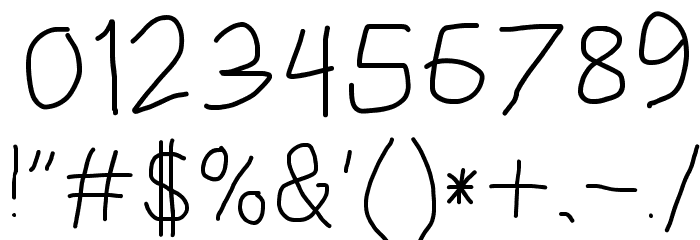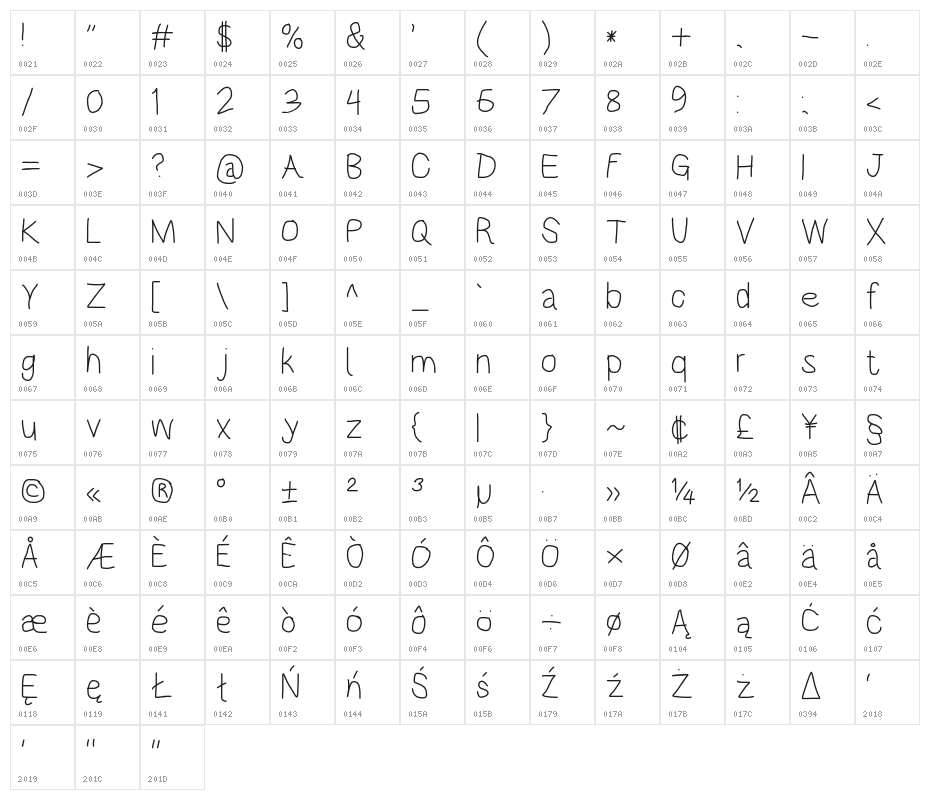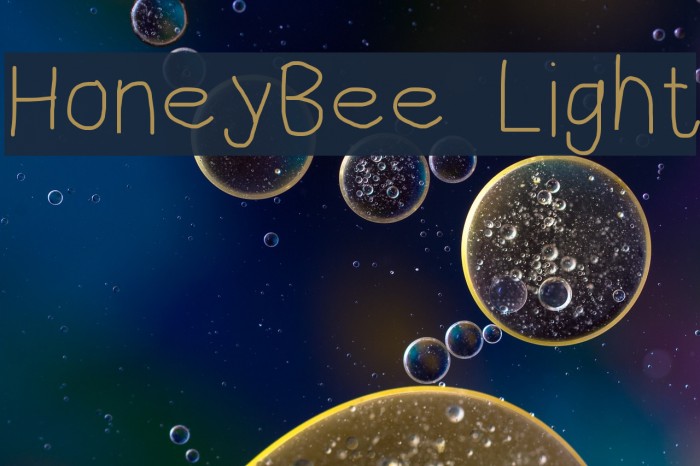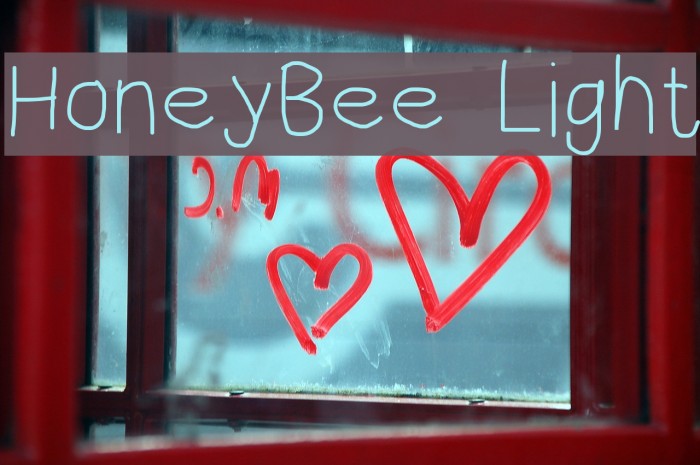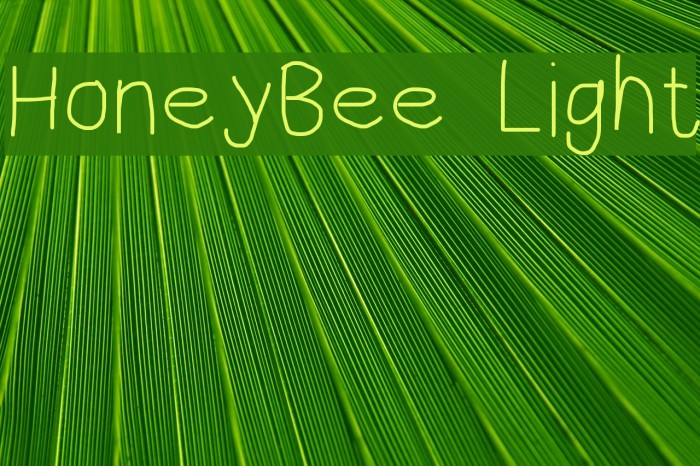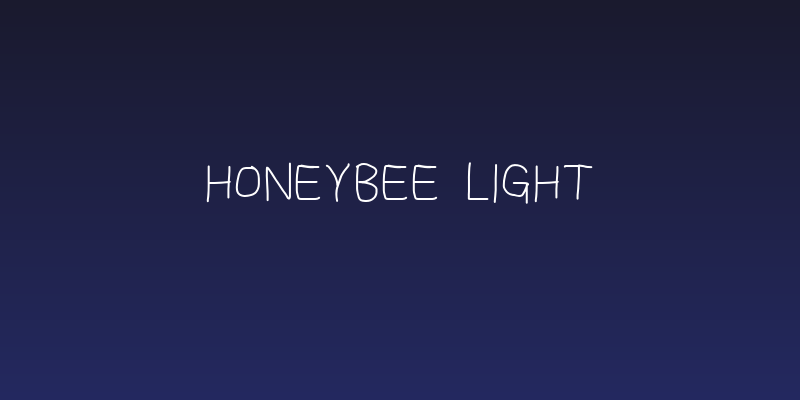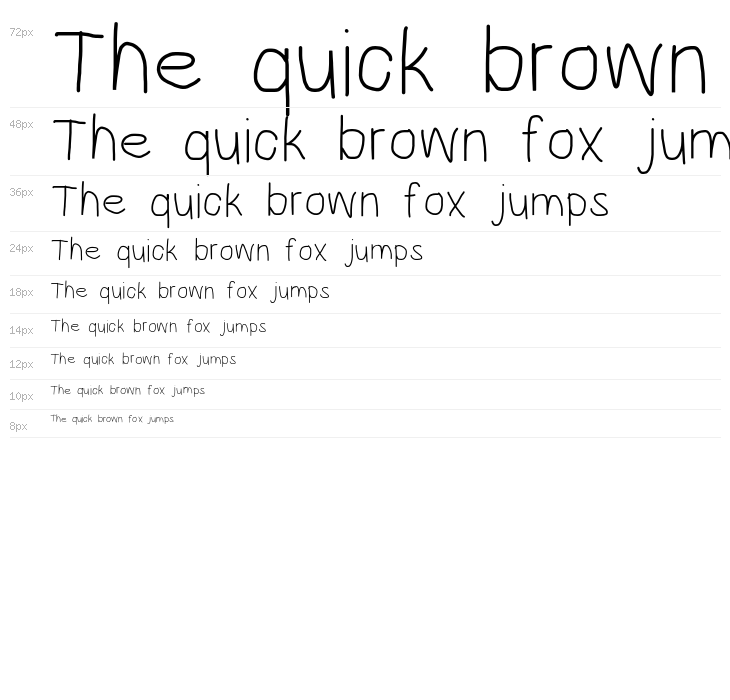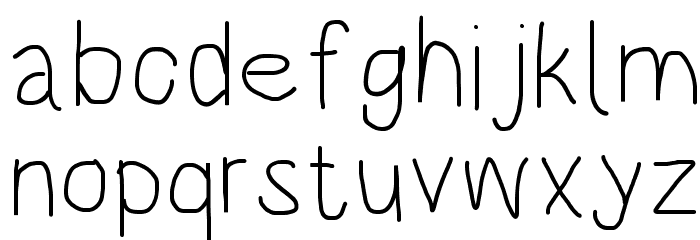
HoneyBee Light Font
HoneyBee Light Description
This font exudes a playful and casual vibe with its handwritten style. The characters are slightly irregular, giving it a natural and organic feel. The strokes are consistent in thickness, contributing to a clean and approachable appearance. The uppercase letters are tall and slightly narrow, while the lowercase letters maintain a friendly and informal look. Numbers and special characters are well-integrated, matching the overall aesthetic. This font is perfect for projects that require a personal touch or a relaxed atmosphere.
| Use Case | Headlines, Informal text, Personal projects |
| Proposed Projects | Ideal for greeting cards, children's books, personal blogs, and informal branding. |